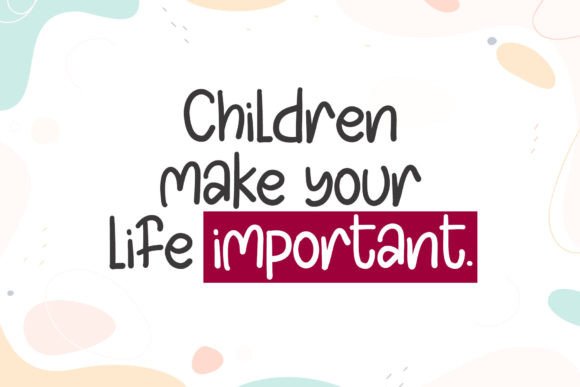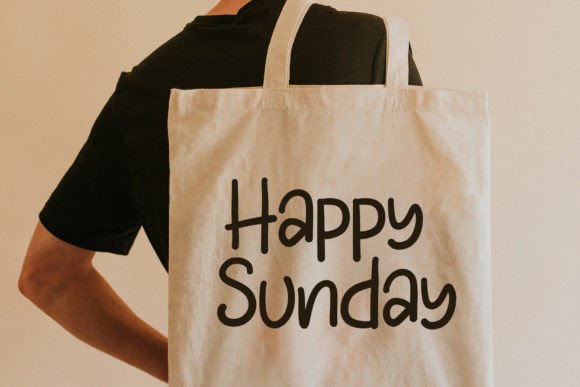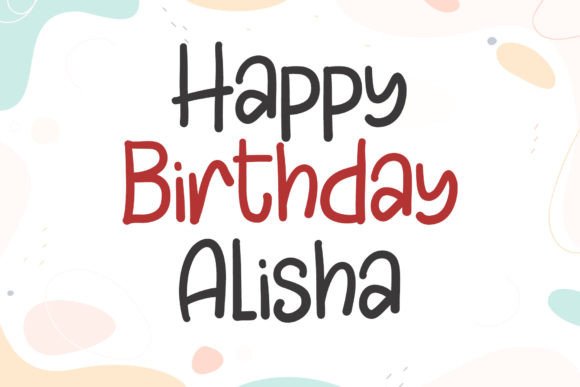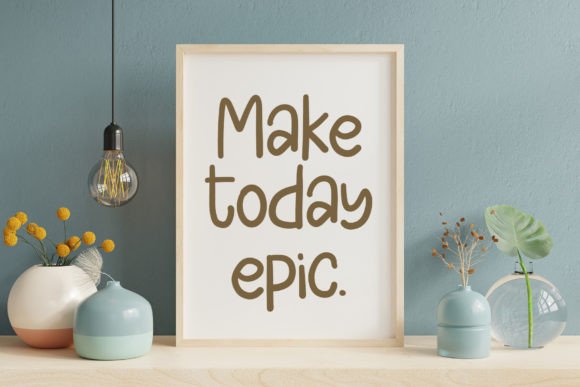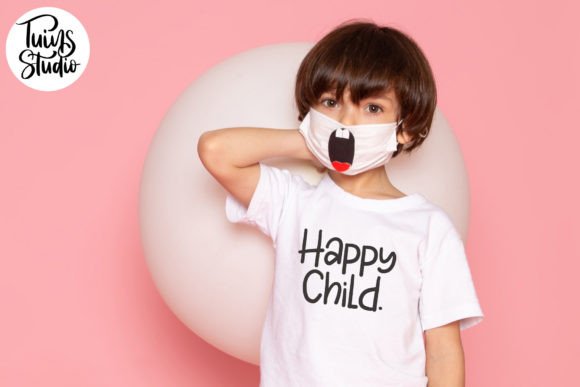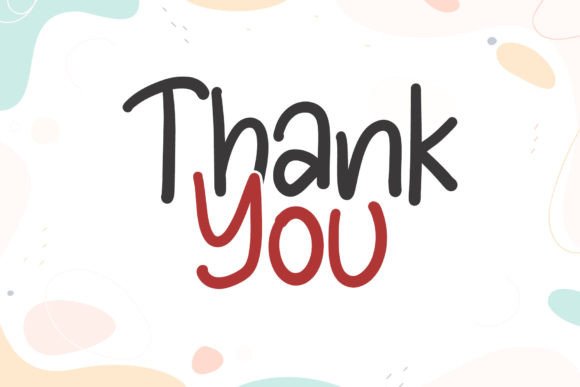
Introduction to Hello Twins Font
As you sit at your desk, surrounded by colorful papers, glue sticks, and scattered ideas, you stumble upon the perfect font for your creative project – the Hello Twins Font. Its playful and cute handwritten style immediately captures your attention, and you can’t help but imagine the countless ways you can use it to make your designs stand out.
Whether you’re a seasoned designer or a hobbyist, the Hello Twins Font has the potential to become your go-to font for any occasion. Its versatility and charm make it an invaluable resource for crafting, digital design, presentations, and even making greeting cards. With its transparent background and high-quality design, you can be sure that your creative projects will shine with this beautiful font.
Key Features of Hello Twins Font
- Unique and playful design perfect for creative projects, with a transparent background allowing for seamless integration into various backgrounds.
- Features a fun and whimsical style, ideal for projects that require a touch of personality, such as children’s books, party invitations, and more.
- Includes a range of characters, including uppercase and lowercase letters, numbers, and punctuation marks, making it a versatile design resource.
Honest Review: Hello Twins Font
- ⚠️ Some users may find the font too playful or distracting for certain creative projects
Overall, I’m impressed with the Hello Twins Font and its potential for adding a touch of whimsy to a design. While it may have some limitations, it’s a great resource for designers looking for a high-quality, free font for their creative projects.
Introduction to Hello Twins Font
The Hello Twins Font is a high-quality design resource that offers a unique and creative touch to any project. With its transparent background and free download option, it’s an ideal choice for designers looking for a versatile and stylish font.
Tips for Getting the Most Out of Hello Twins Font
To get the most out of the Hello Twins Font, use it in combination with other design elements such as graphics and images. You can also experiment with different font sizes and colors to create a unique and eye-catching design.
Common Use Cases for Hello Twins Font
The Hello Twins Font is ideal for various creative projects such as:
- Branding materials